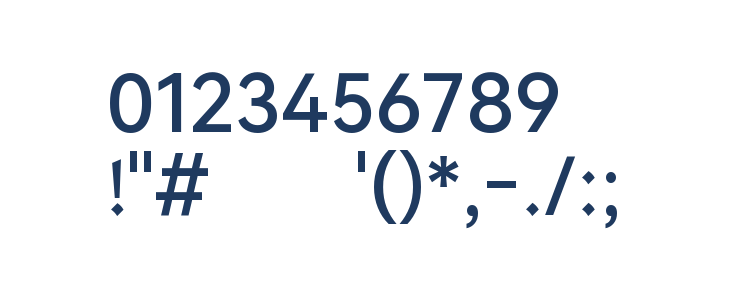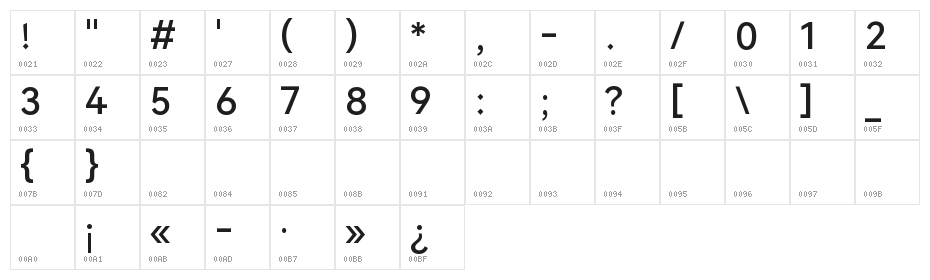
HarmonyOS Sans Naskh Arabic Medium Font
HarmonyOS Sans Naskh Arabic Medium Description
This font features a clean and modern sans-serif style, characterized by its simplicity and clarity. The characters are well-balanced with a uniform stroke width, providing a harmonious and legible appearance. The numerals and special characters are designed to complement the alphabet, maintaining consistency across the entire set. The overall design is versatile, making it suitable for a wide range of applications, from digital interfaces to print media. Its straightforward and uncluttered aesthetic ensures readability, even at smaller sizes, while still being visually appealing in larger formats.